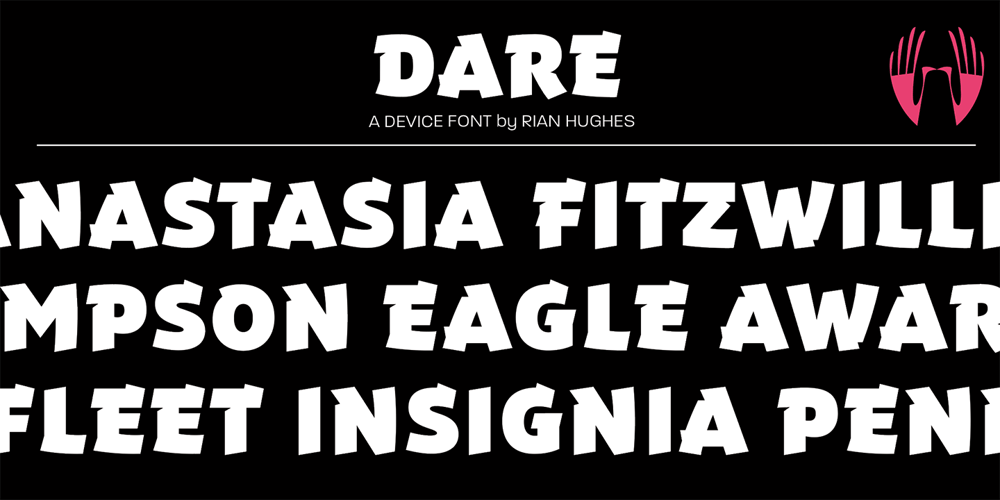
Dare Font Family was designed by Rian Hughes and published by Device. Dare contains 1 styles and family package options. Dare is a bold, single-weight titling font in capitals only. It is built from flat-pen strokes, with looping bowls and sharp, incised darts. It borrows a pinch of the hand-drawn swagger of Bauer’s Cartoon (designed in 1936 by H. A. Trafton), used as Dan Dare’s signature logo in the British boy’s comic Eagle, and also the upward-pointing serifs of machine-moderne typefaces such as Dynamo (designed by K. Sommer for Ludwig & Mayer in 1930). Suitable for book covers, magazines, branding, packaging – any place where an impactful, contemporary statement is required, but still with an undertone of 20th century tradition.